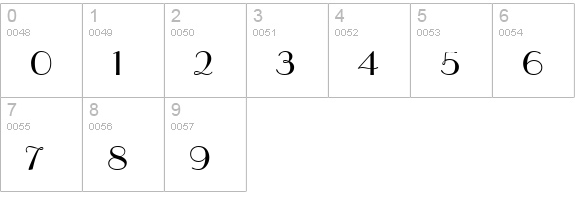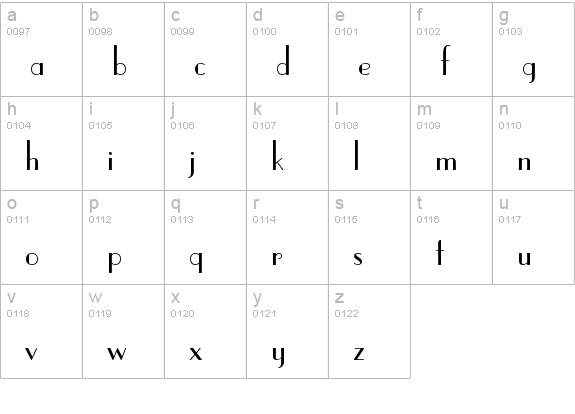
TR Paragon Plain Font Details
TR Paragon Plain is a versatile and modern font that exudes elegance and simplicity. With its clean lines and timeless design, this font is perfect for a wide range of projects, from branding to editorial design. The sleek and minimalistic aesthetic of TR Paragon Plain makes it a great choice for both digital and print applications. What sets TR Paragon Plain apart is not only its aesthetic appeal but also the fact that it is available for free. That's right, you can download this beautiful font at FontsMarket.com without any cost. Whether you're a designer looking to elevate your work or someone in need of a stylish typeface for personal projects, TR Paragon Plain is a fantastic choice that won't break the bank. Don't miss out on the opportunity to enhance your designs with TR Paragon Plain - download it for free today at FontsMarket.com and take your creative projects to the next level.